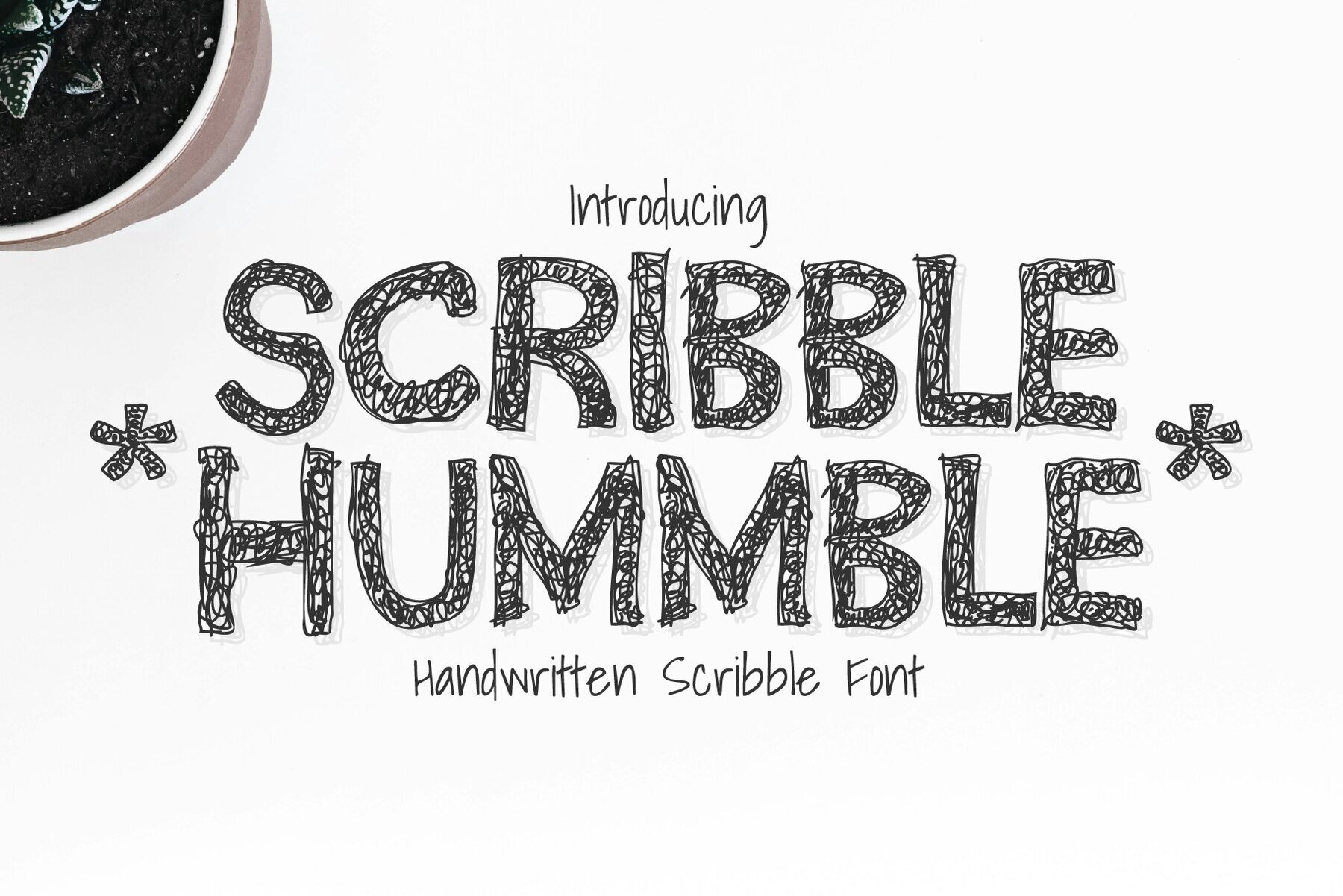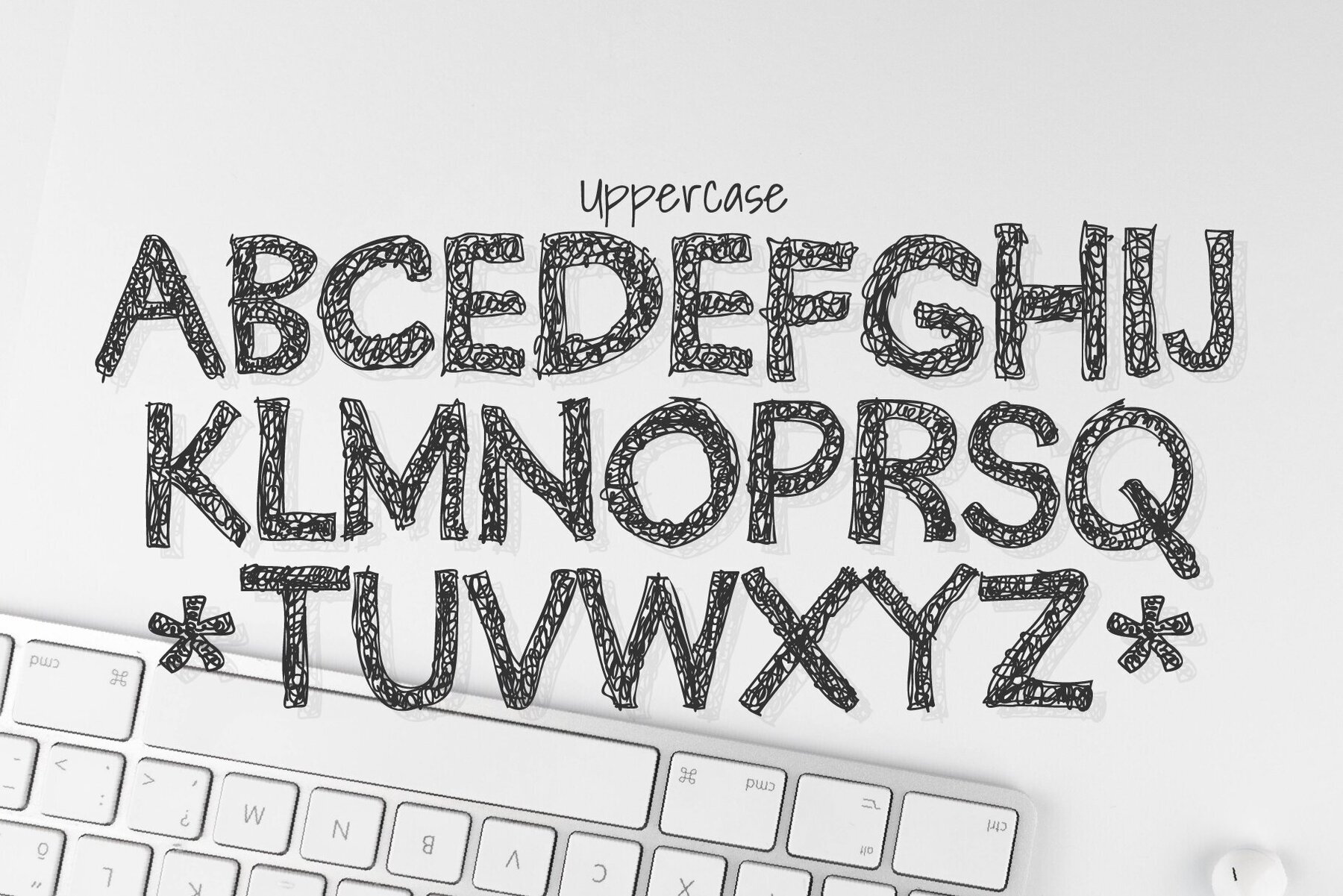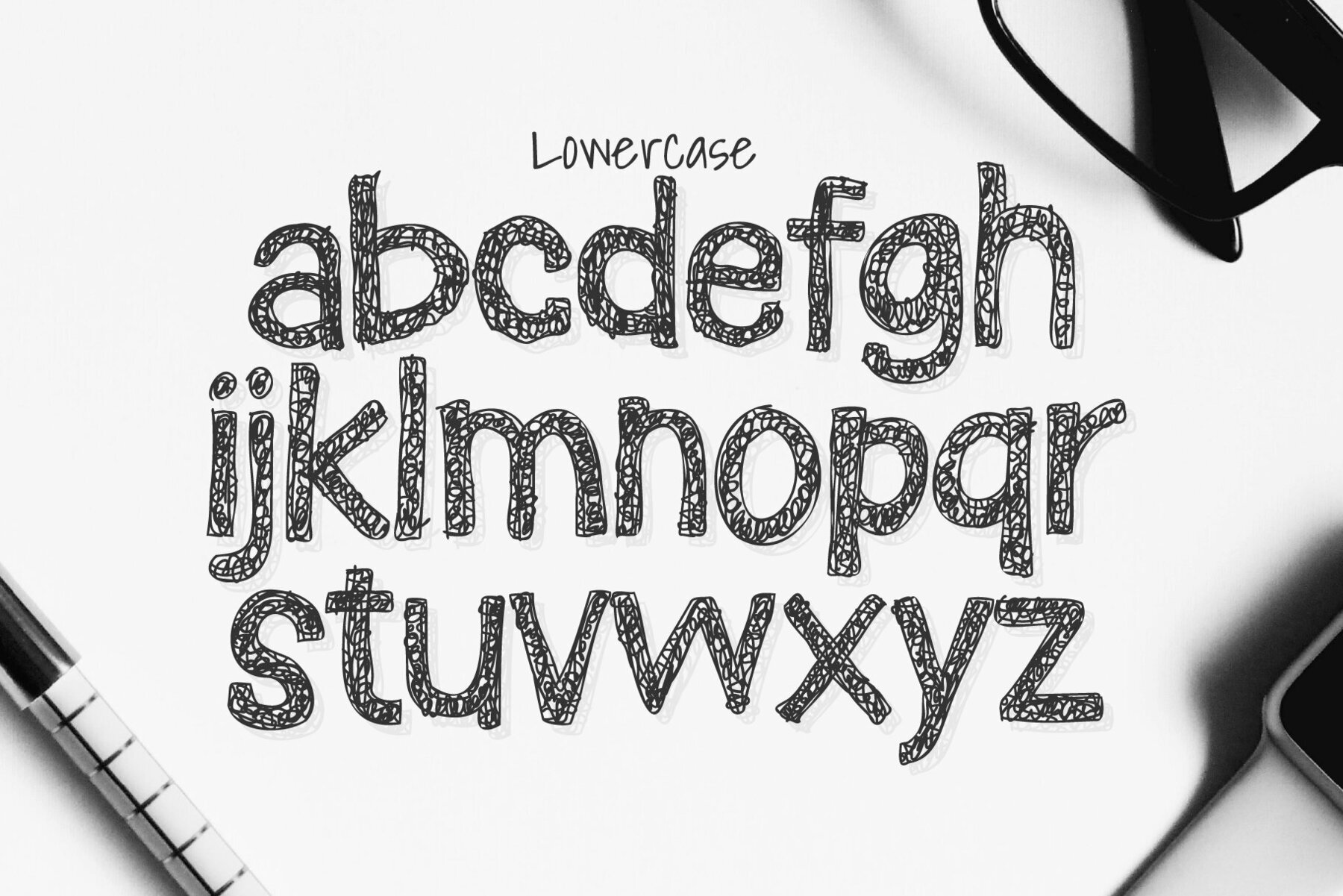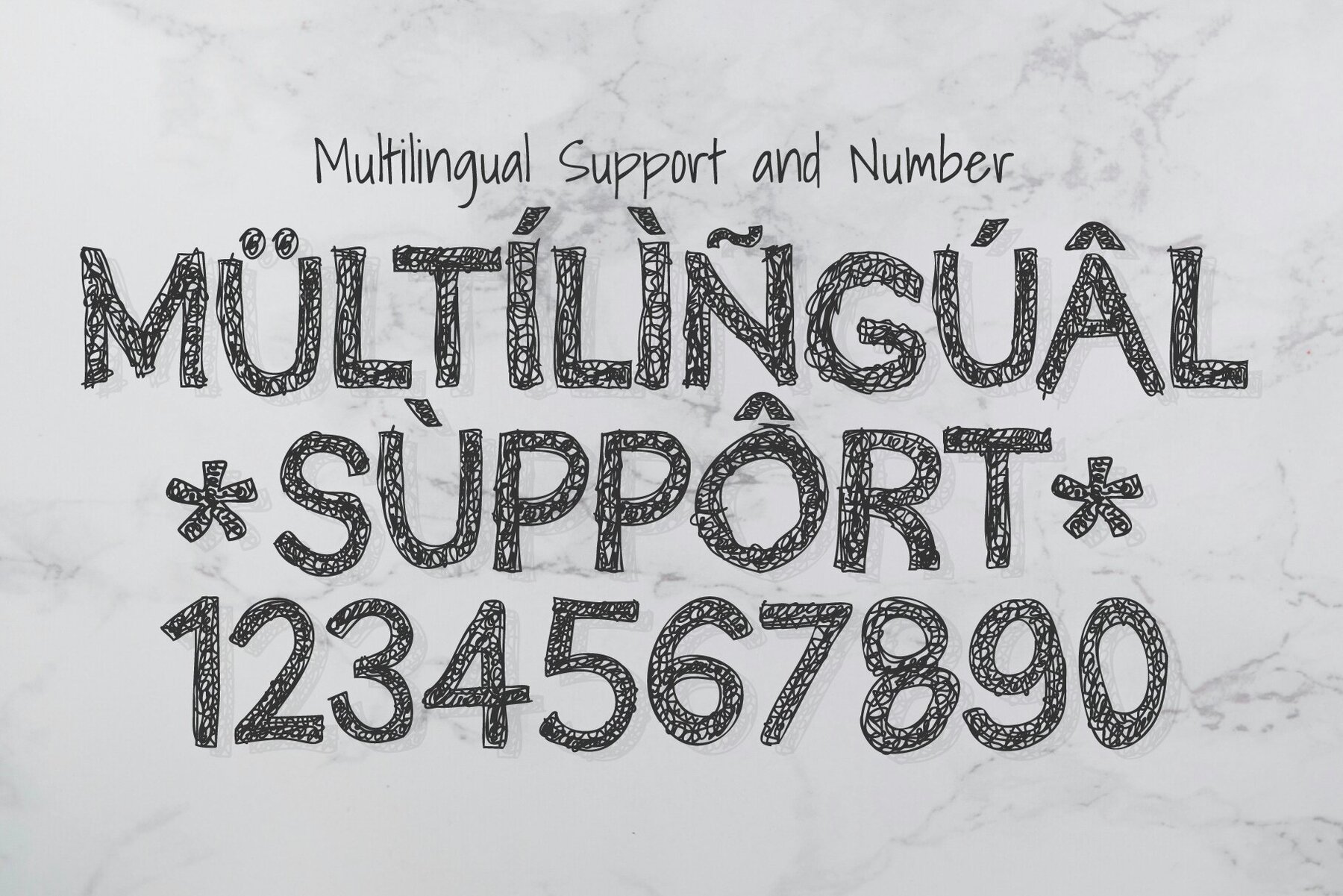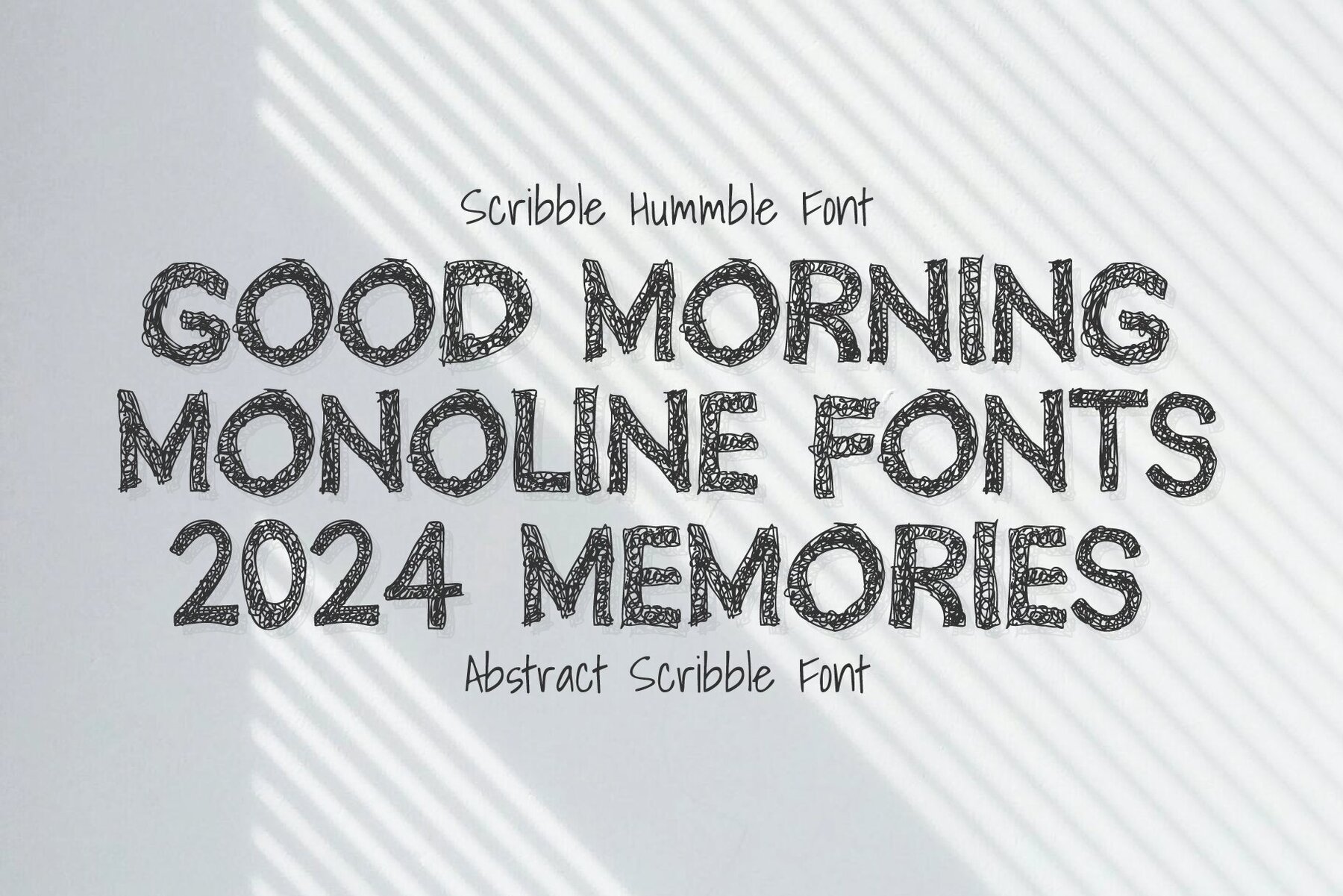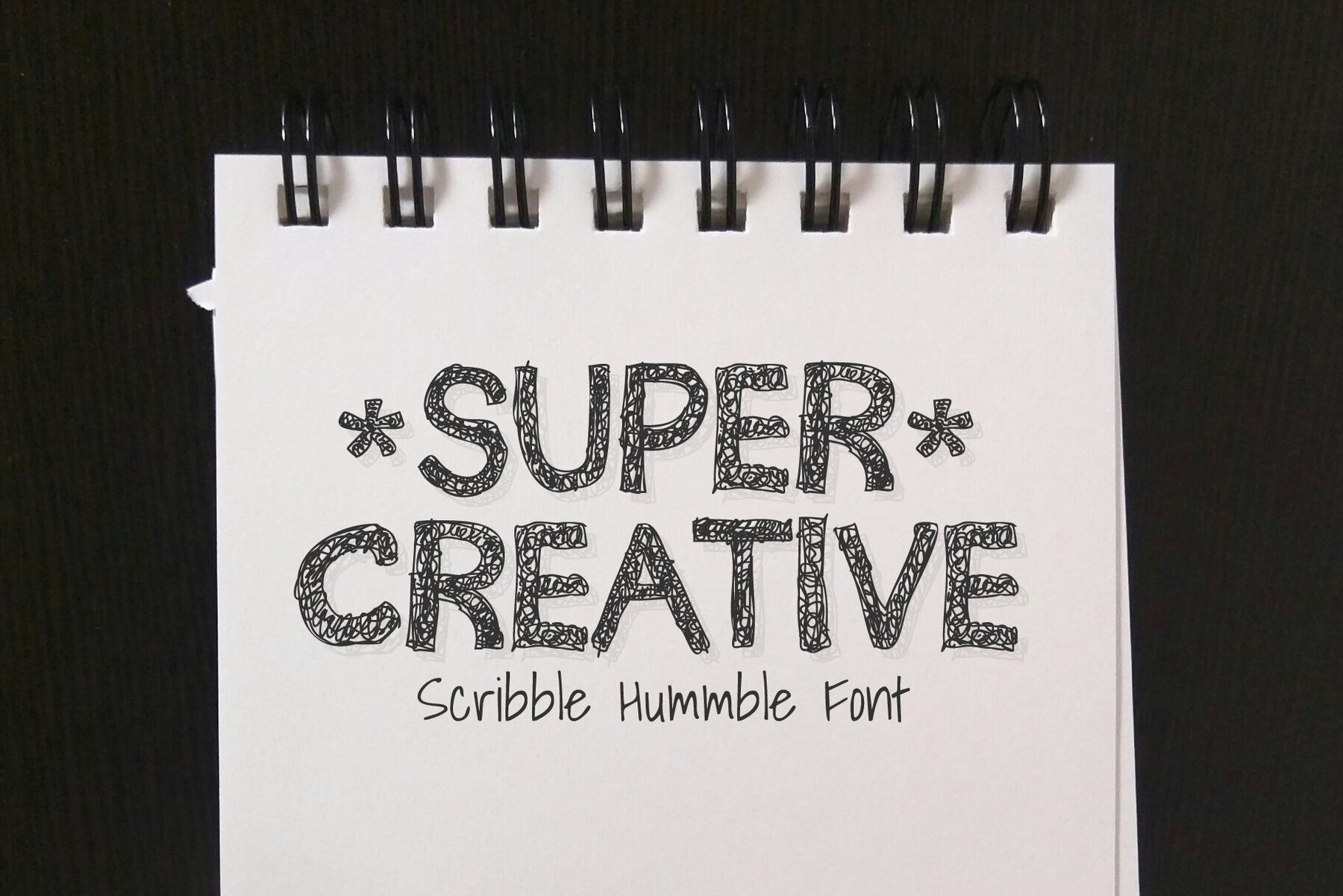
Scribble Hummble Font
Scribble Hummble
Scribble Hummble is a captivating handwritten font designed with abstract, scribbled outlines that make every stroke vibrant and unique. Its unconventional and irregular style radiates creativity and individuality. Perfect for projects that need a distinctive, artistic touch, its mesmerizing appearance adds a bold, expressive flair to any design. Ideal for enhancing branding, posters, illustrations, social media graphics, or creative editorial layouts, Scribble Hummble invites you to break the rules and explore spontaneous, authentic visual expressions. Infuse your designs with the raw, artistic energy of Scribble Hummble, where imperfection becomes inspiration.Scribble Hummble Handwritten Font